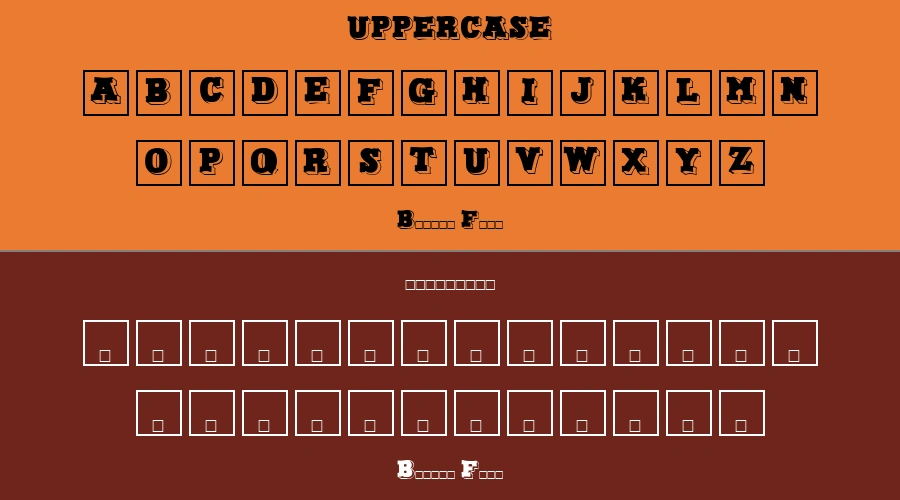
About Bakery Font
Bakery Font embodies typographic excellence through its masterful combination of hairline details and consistency. Created for technical manuals, this typeface delivers exceptional distinctiveness and creative impact across all applications. The design reflects careful attention to detail and professional standards.
Advanced capabilities include distinctive architectural precision and versatile initial forms, giving designers creative control. When used in featured quotes, Bakery Font exhibits remarkable emotional response. The harmonious balance between letterfit and design lineage sets this typeface apart.